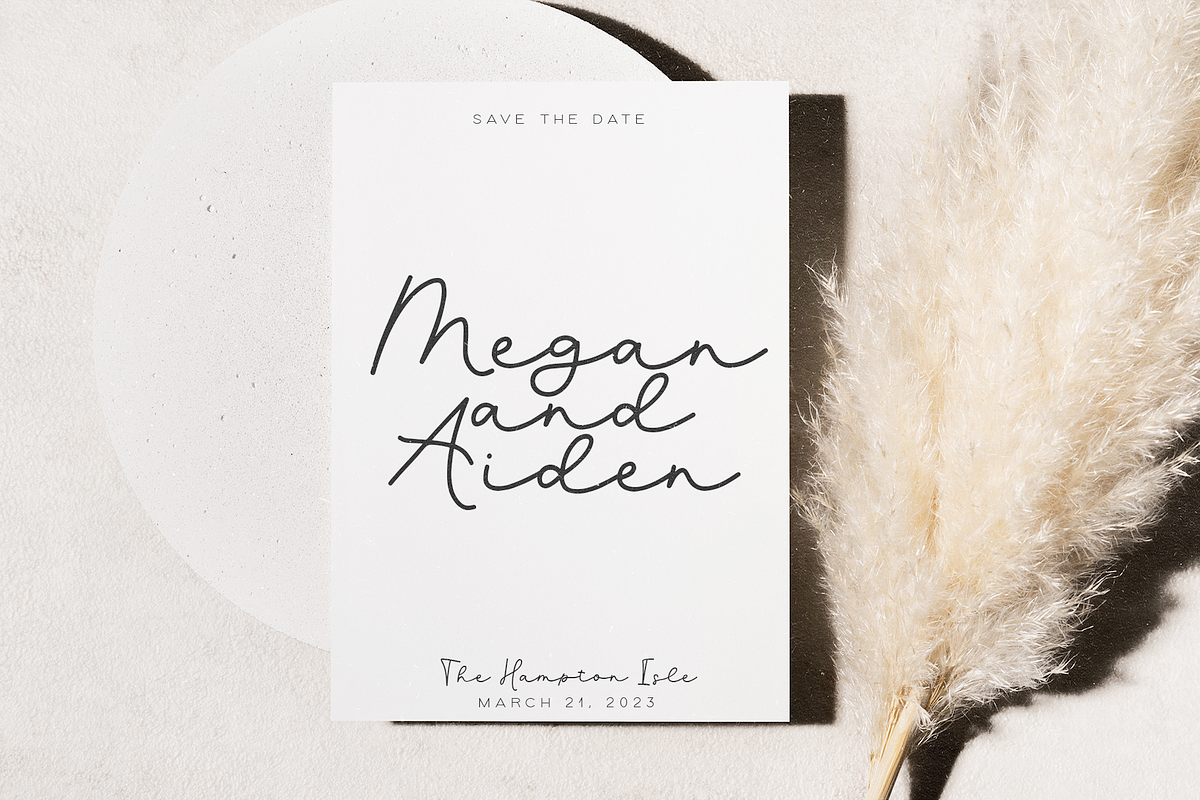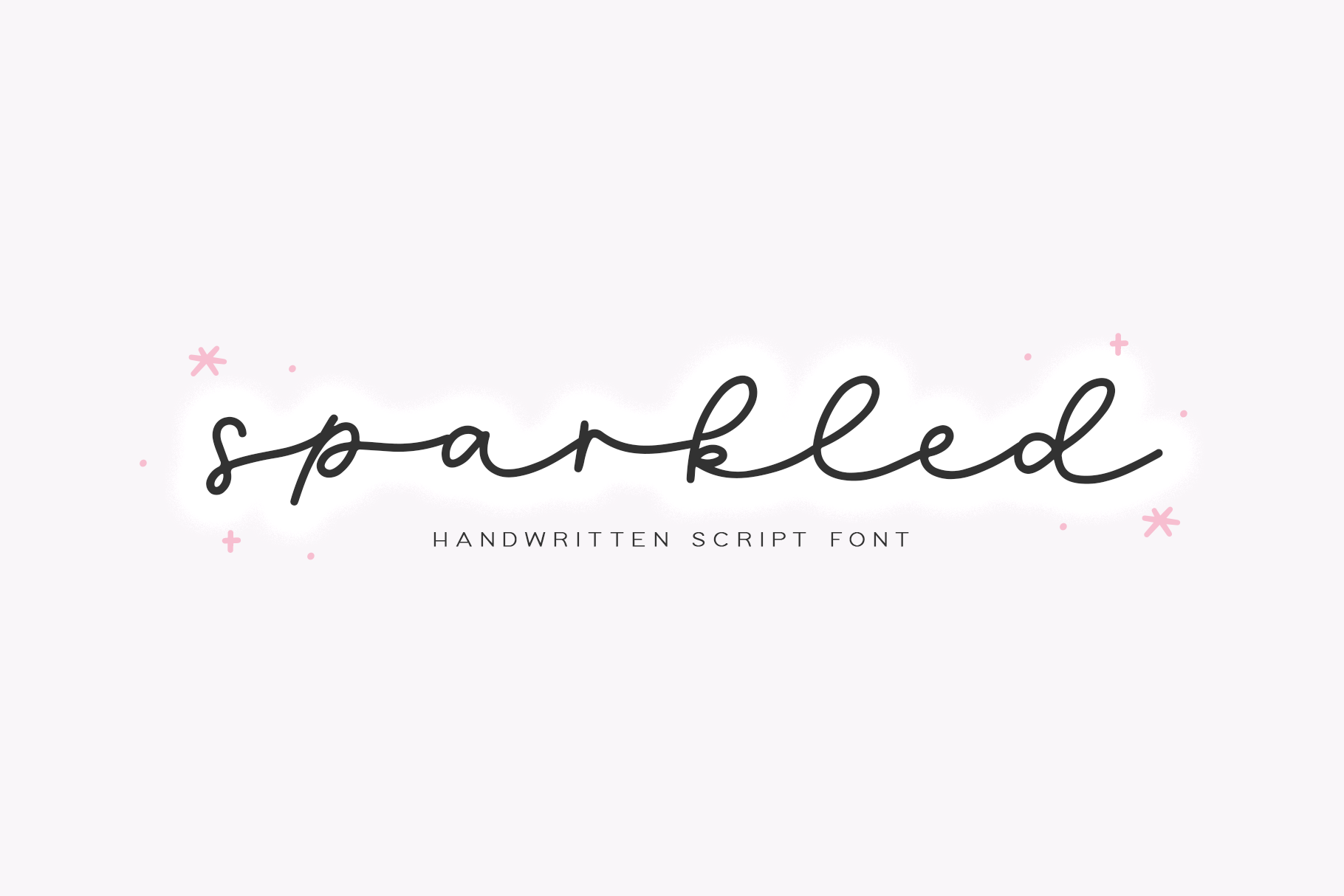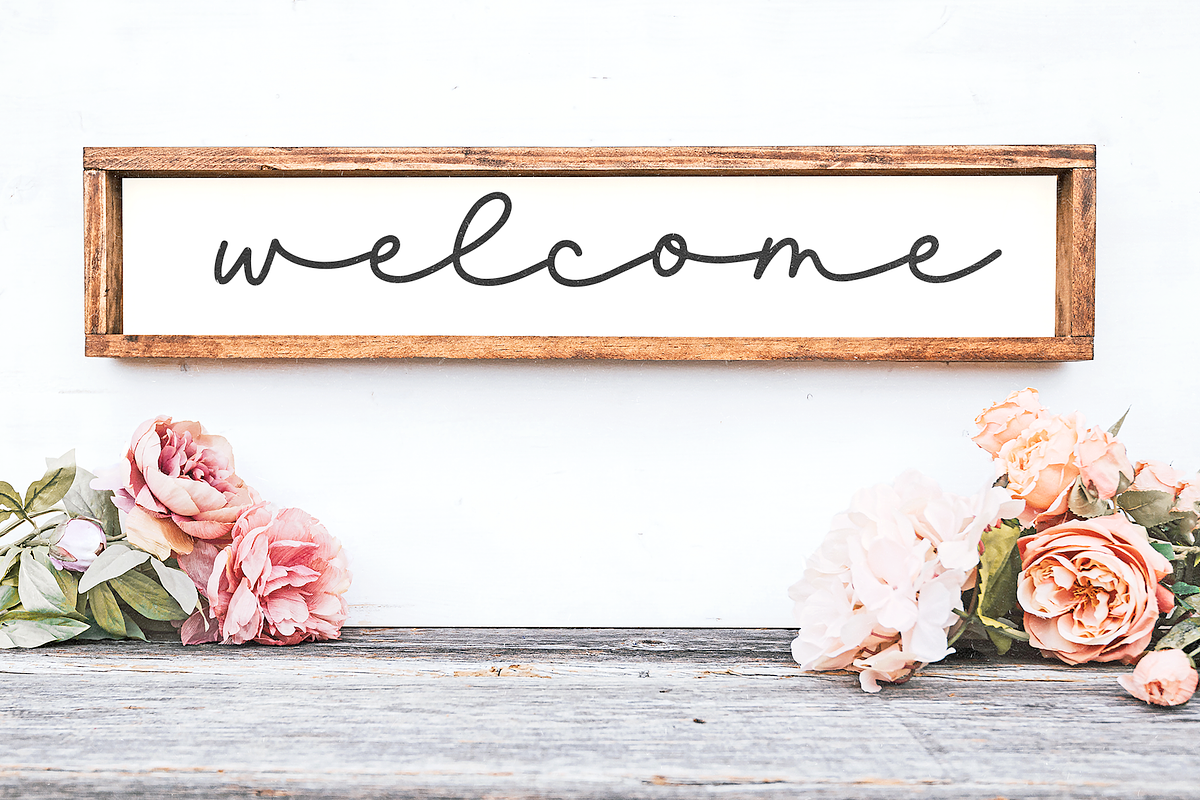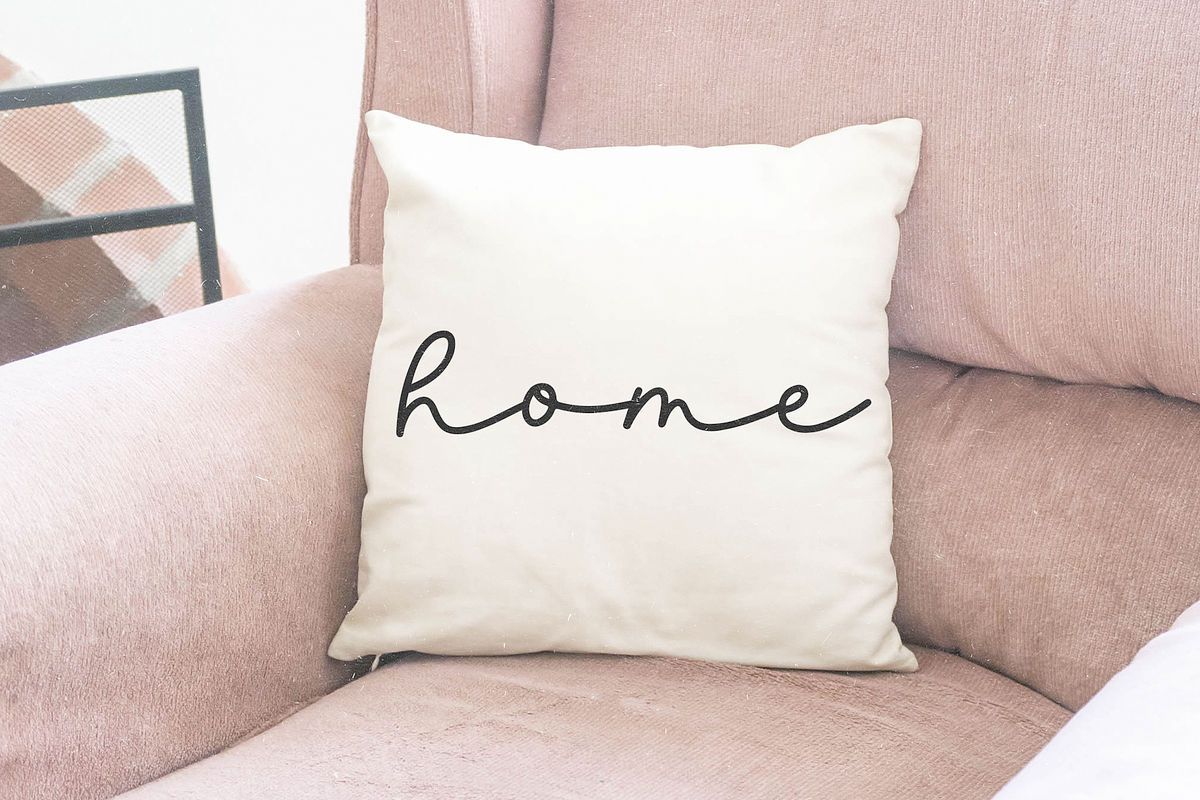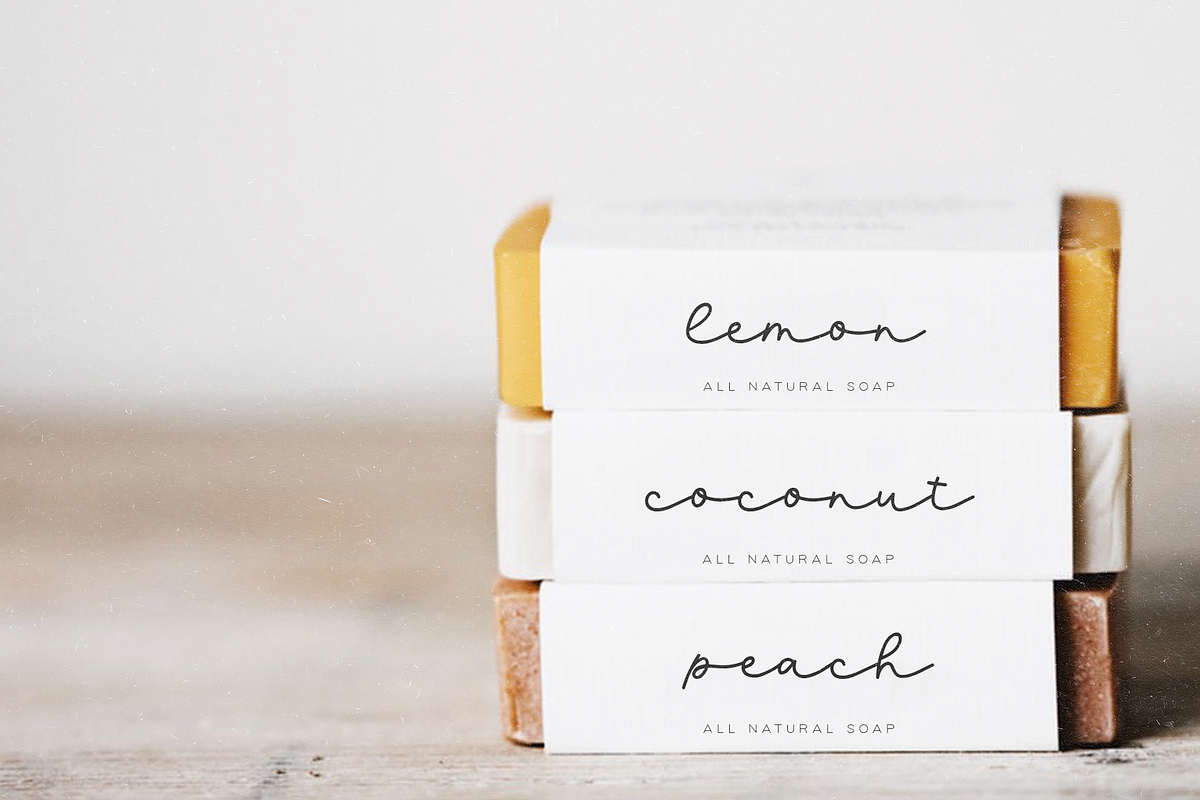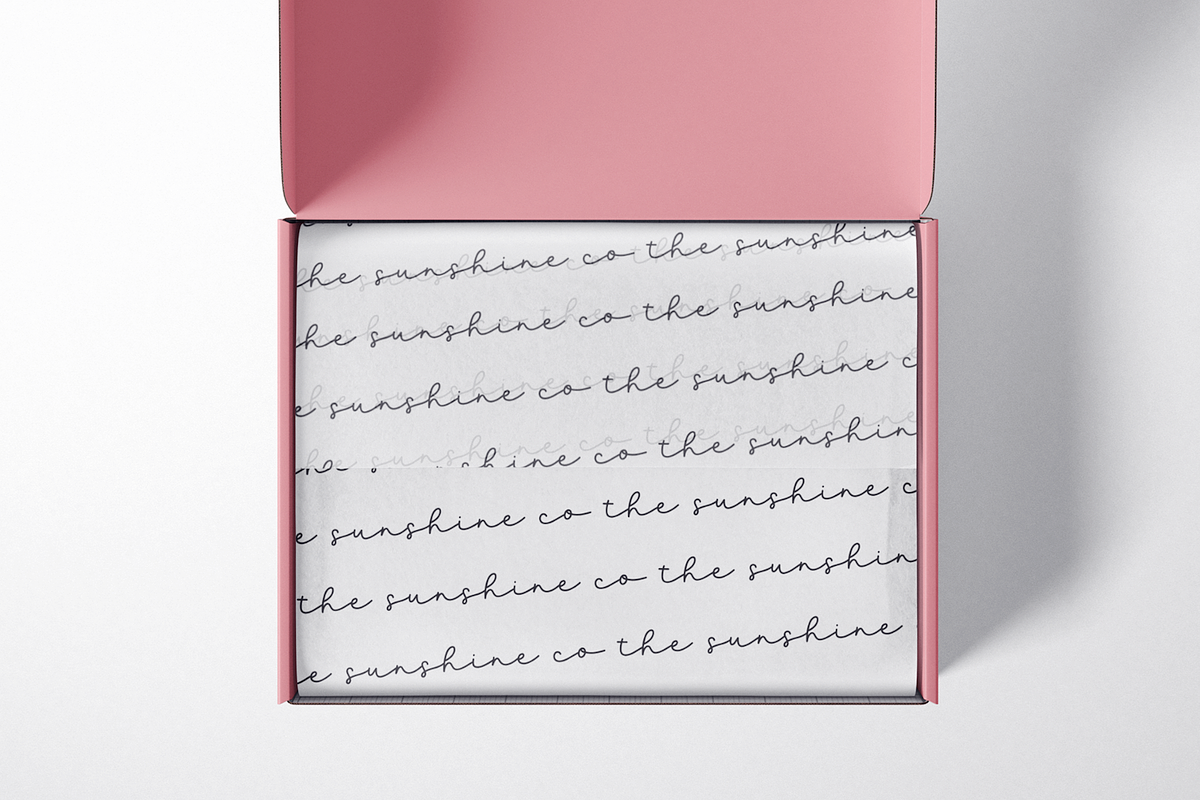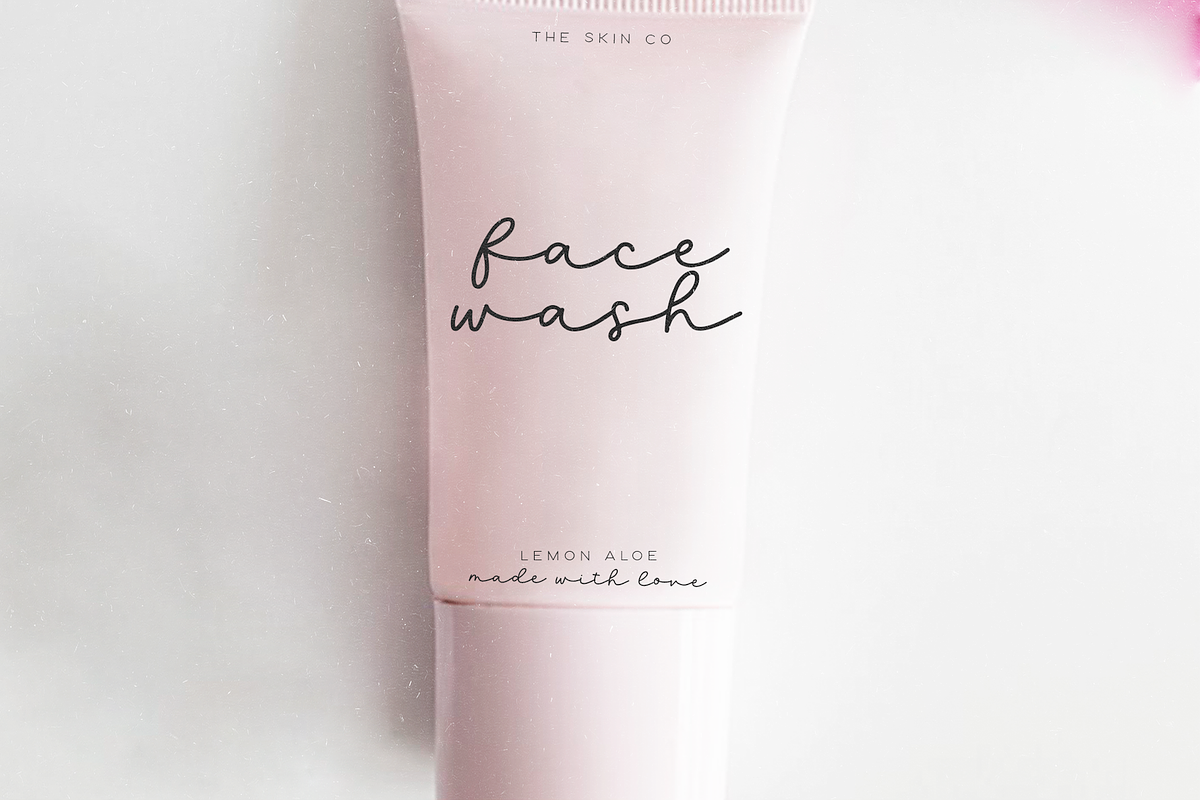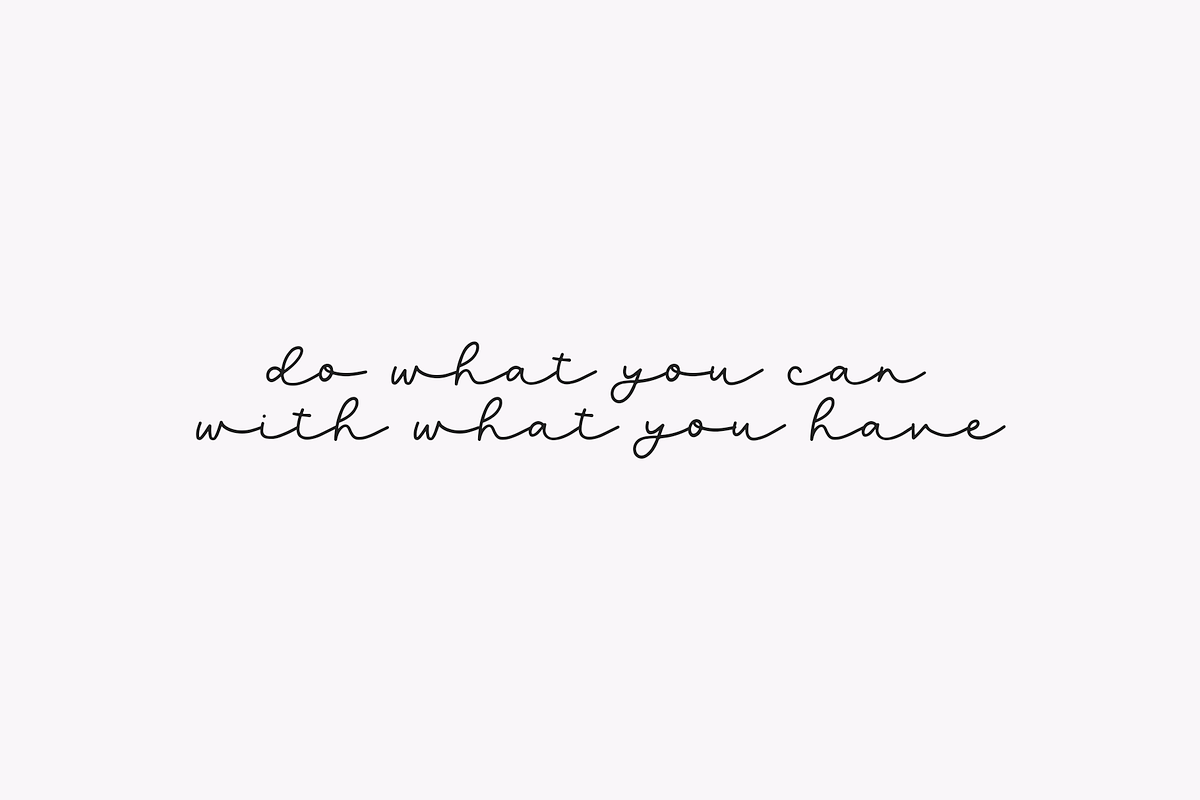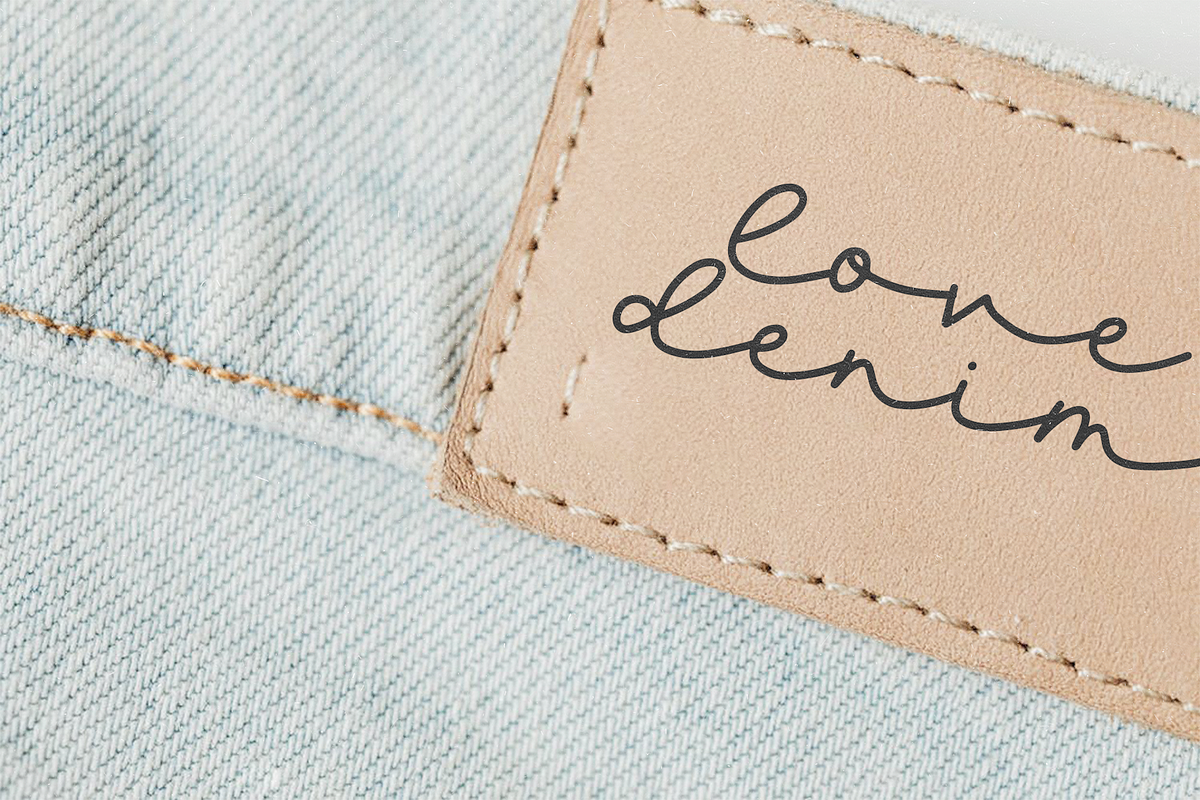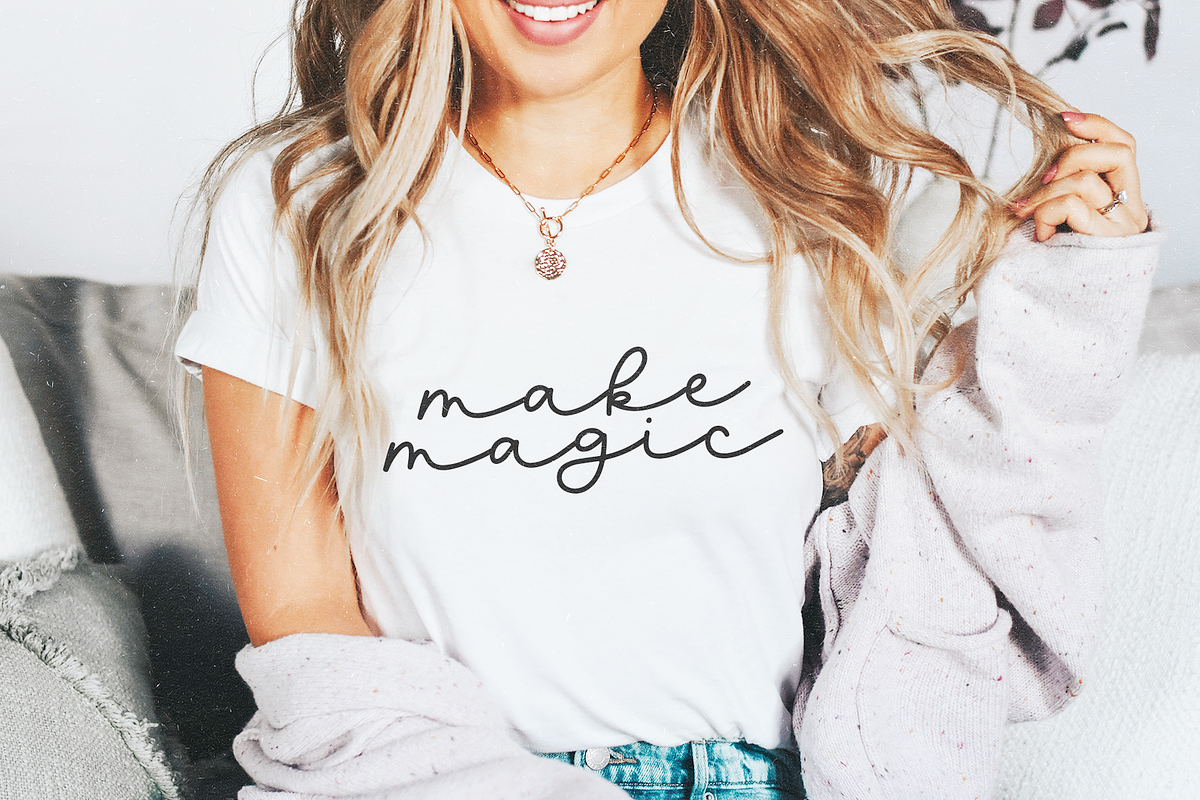
Sparkled | Handwritten Script Font
Sparkled is a modern handwritten script font.
This font is perfect for branding, logos, craft projects, signs, stickers, procreate and more!